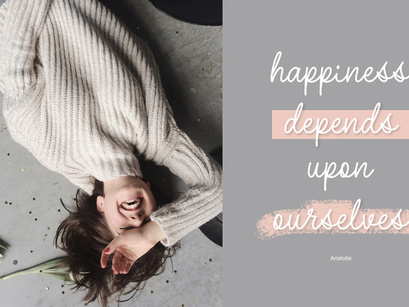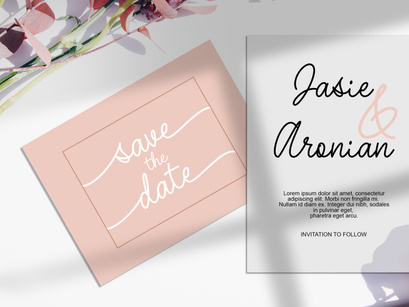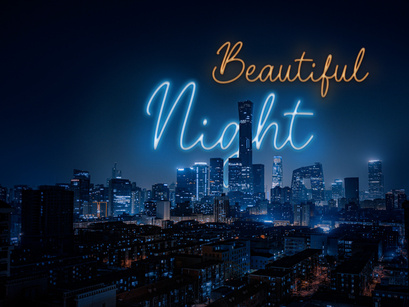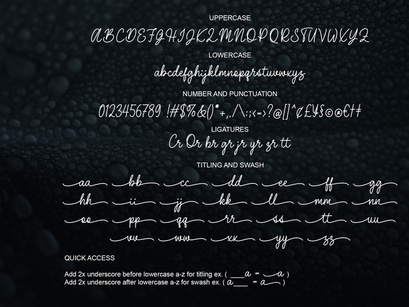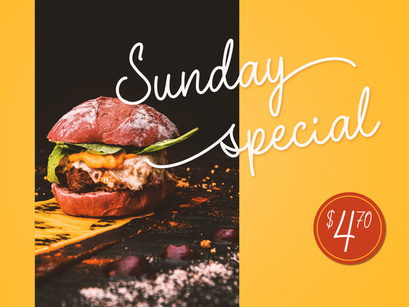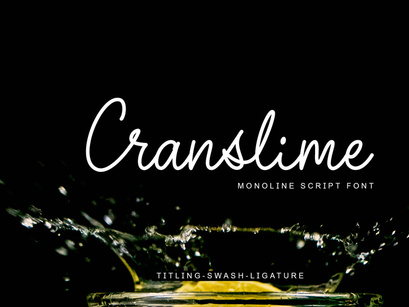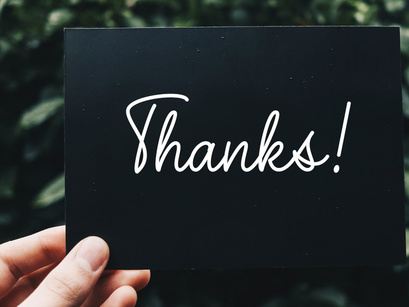
Cranslime is a beautiful handwritten script font in a monoline style. It’s perfect font for wedding invitations, stationery, photography, social media posts, product packaging, greeting cards, and much more!
Ligatures
Titling
Swash
Uppercase and Lowercase letters
Numbering and Punctuations
Also Multilingual Support